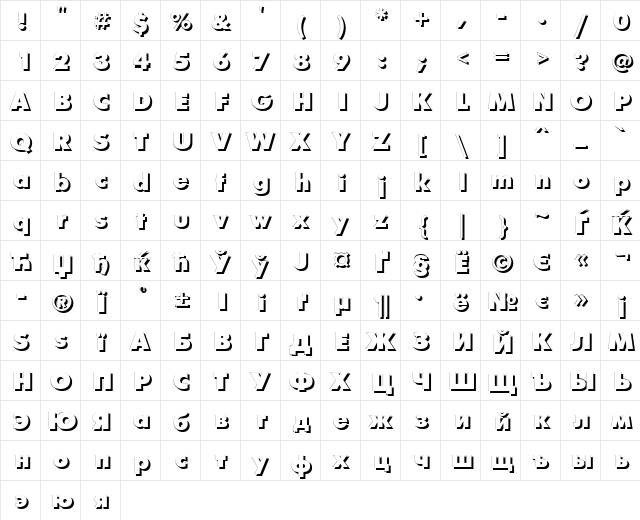
FuturaFuturisXShadowC Regular
Design Context for FuturaFuturisXShadowC Typeface
FuturaFuturisXShadowC has a distinctly futuristic character, with geometric precision and clean angles that feel at home in technology, gaming, and sci-fi contexts.